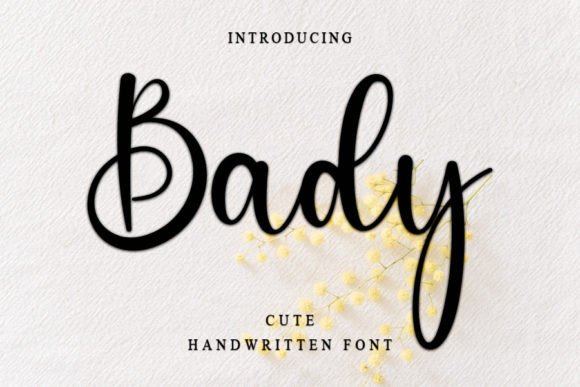
Bady Font: Elevate Your Designs with Elegance and Timeless Style
In the world of typography, a font can make or break a design. It’s the foundation upon which the entire visual aesthetic is built. For designers and crafters looking for that perfect blend of elegance and timelessness, the Bady Font is an exceptional choice. Described as a neat and beautiful handwritten font with an elegant touch, Bady is perfect for those looking to infuse their projects with a distinct and classic style.
The Distinctive Charm of Bady Font
Bady Font stands out in the sea of typefaces due to its incredibly distinct style. Its elegant touch isn’t just a description; it’s an experience. When you use Bady, you’re not just picking a font; you’re adopting a design language that’s both sophisticated and approachable. The neatness of the font ensures that your designs look organized and precise, while its beauty lies in its ability to evoke emotions and add a personal touch to your work.
Why Choose Bady Font?
There are several reasons why Bady Font should be your go-to for your design projects:
- Elegance: Bady brings an unmatched level of elegance to your designs. Whether you’re working on a luxury brand’s logo, a wedding invitation, or a high-end product catalog, Bady ensures your text exudes class and sophistication.
- Timeless Style: Trends come and go, but Bady’s style remains timeless. It doesn’t lean heavily on current trends, making it a safe choice for projects that need to stand the test of time.
- Versatility: Despite its elegant nature, Bady is surprisingly versatile. It can be used in a variety of projects, from digital platforms like websites and social media graphics to print materials such as brochures, posters, and business cards.
- Legibility: Bady’s neatness contributes to its excellent legibility. Even in smaller sizes, the font remains clear and readable, making it perfect for body text as well as headings.
Using Bady Font in Your Projects
Incorporating Bady Font into your designs is a straightforward process that can elevate your work significantly. Here are some tips on how to make the most out of Bady:
- Pair it Wisely: While Bady is stunning on its own, pairing it with complementary fonts can enhance its beauty. Opt for fonts that are more geometric or sans-serif to create a nice contrast.
- Experiment with Colors: Bady’s elegance shines through in various colors. Don’t be afraid to experiment with different color palettes to find the one that best suits your project’s mood and theme.
- Play with Sizes: Bady’s legibility at various sizes makes it an excellent choice for both headings and body text. Playing with font sizes can add hierarchy and interest to your designs.
Bady Font is more than just a typeface; it’s a design companion that brings elegance, timelessness, and versatility to your projects. Its distinct style and neat appearance make it perfect for a wide range of applications, from digital designs to print materials. Whether you’re a professional designer or a crafter working on personal projects, Bady Font has the potential to elevate your work and make it stand out. So, fall in love with Bady’s incredibly distinct and timeless style, and use it to create spectacular designs that leave a lasting impression.
Discover the beauty of Bady Font today and transform your designs with its elegant touch.